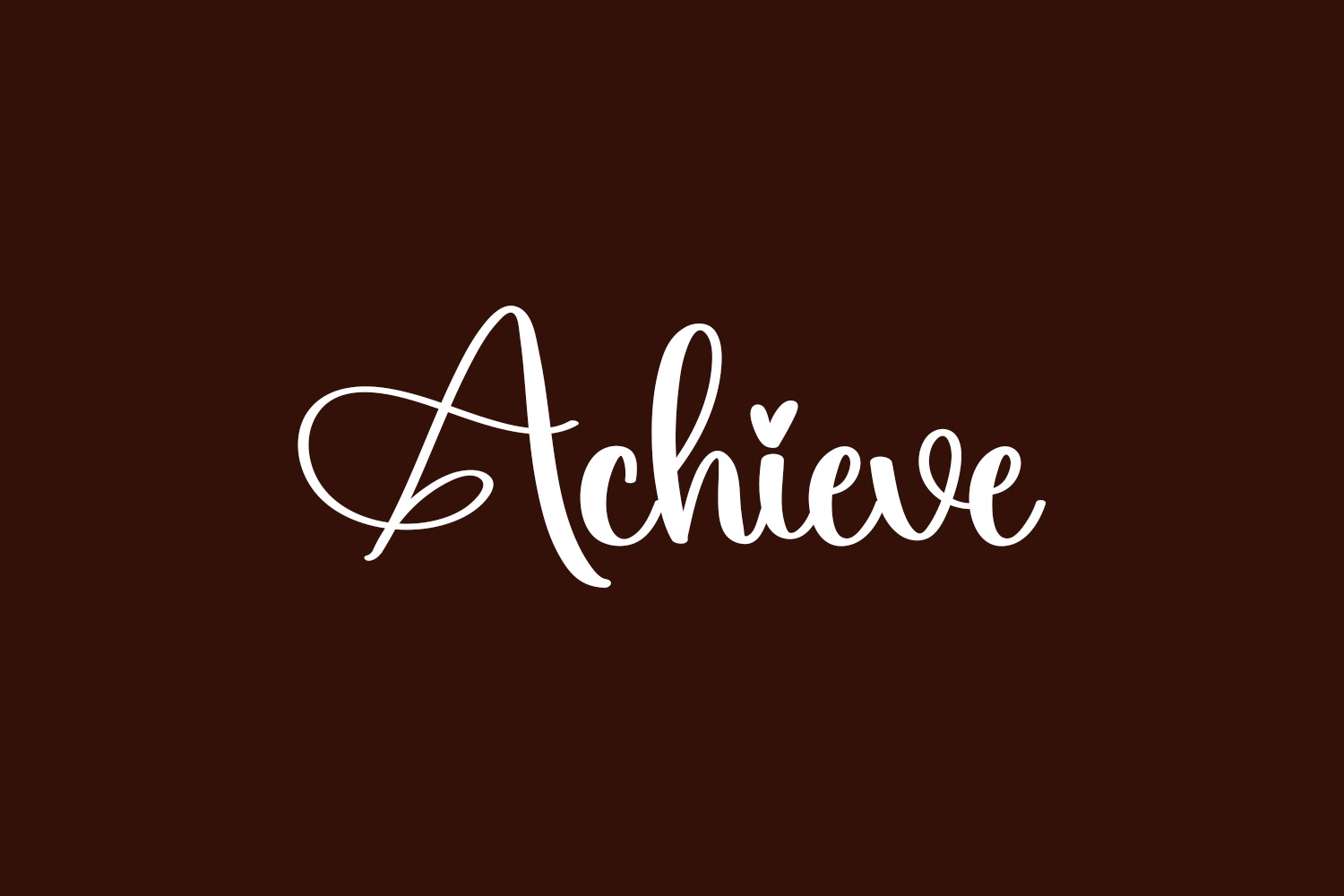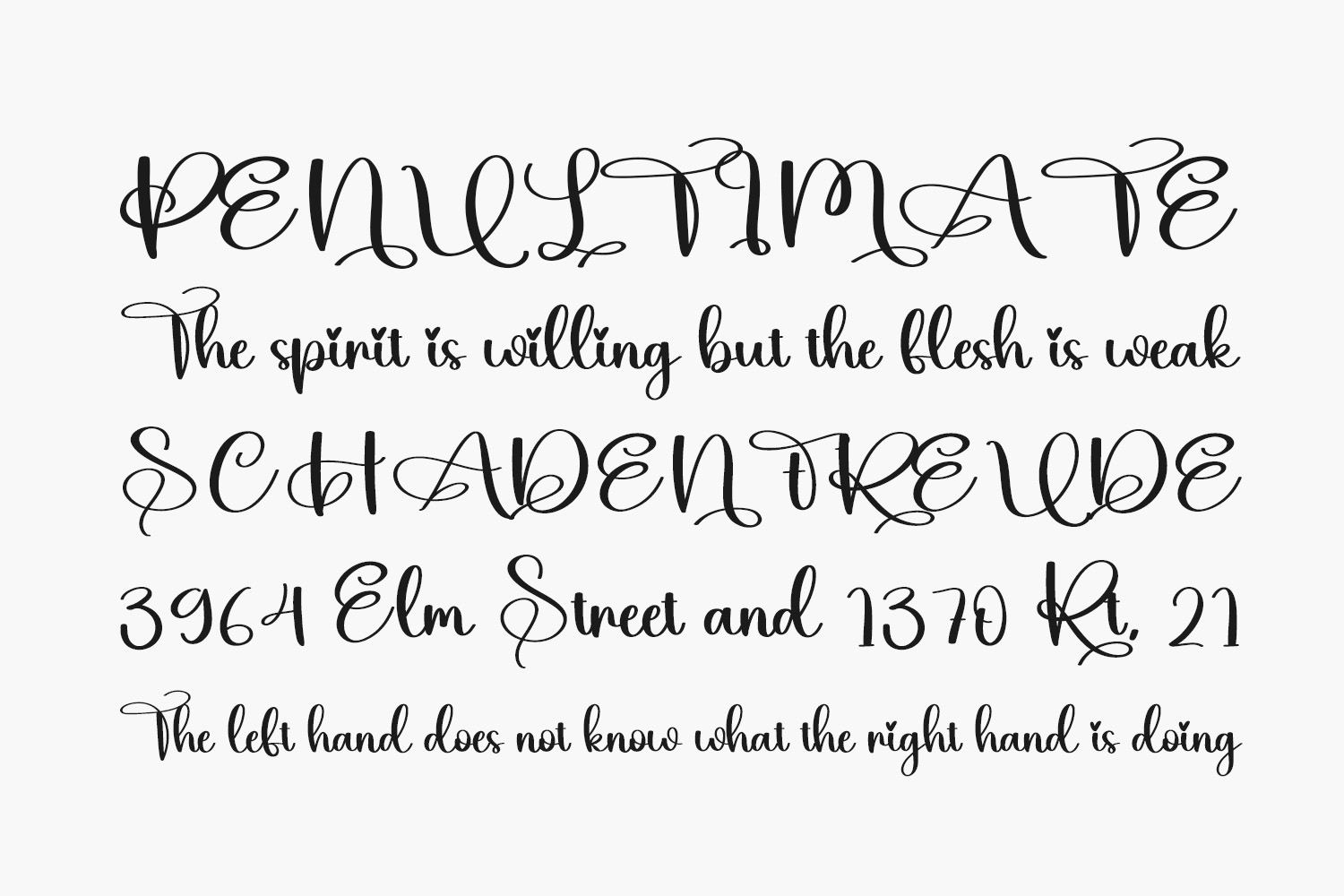
Elevate your artistic endeavors with this exquisite Achieve Free Font that adds a touch of sophistication and modernity to your creative projects. Featuring stunning typography, Achieve Font is a versatile choice for various applications including logo and branding design, invitations, stationery, wedding themes, social media visuals, advertising materials, product packaging, design projects, labels, photography enhancements, watermarks, special occasions, and anything requiring a tasteful handwritten aesthetic. Achieve Free Font is free for personal use only. Please purchase the full version for commercial use.